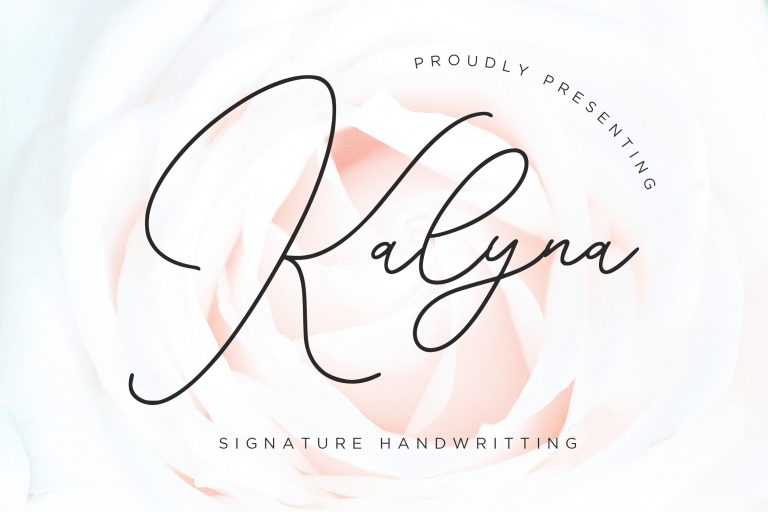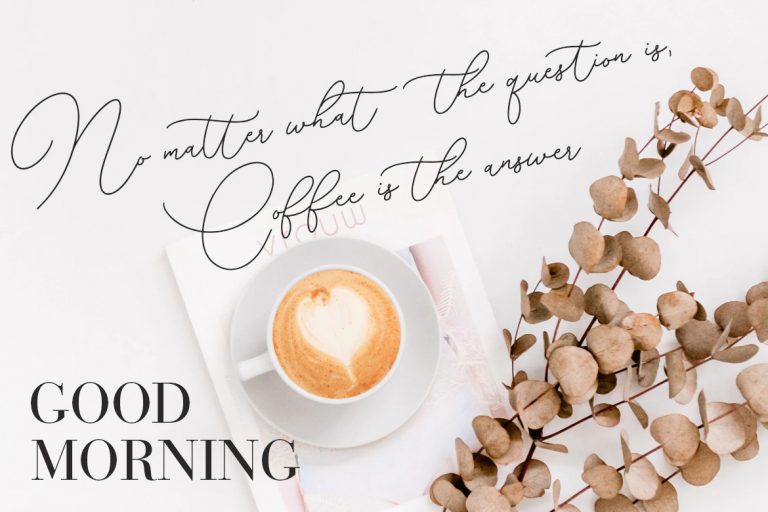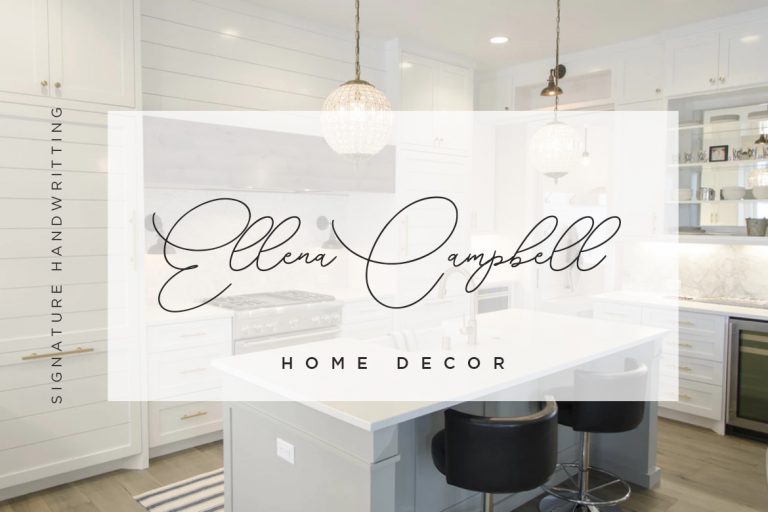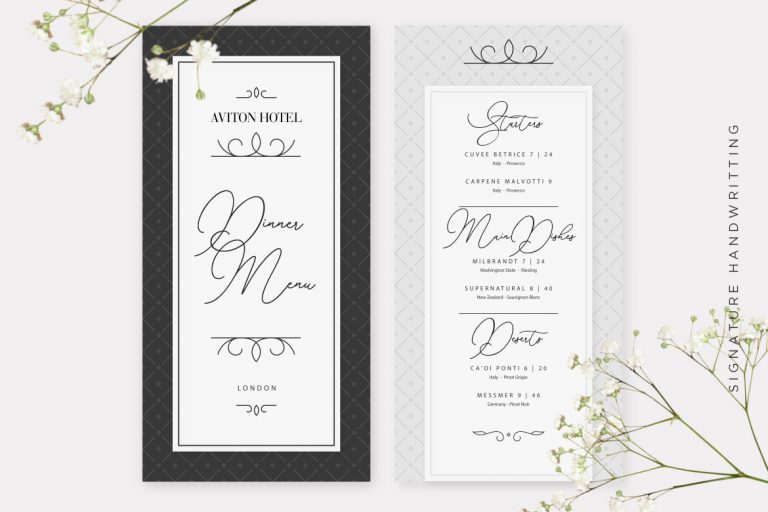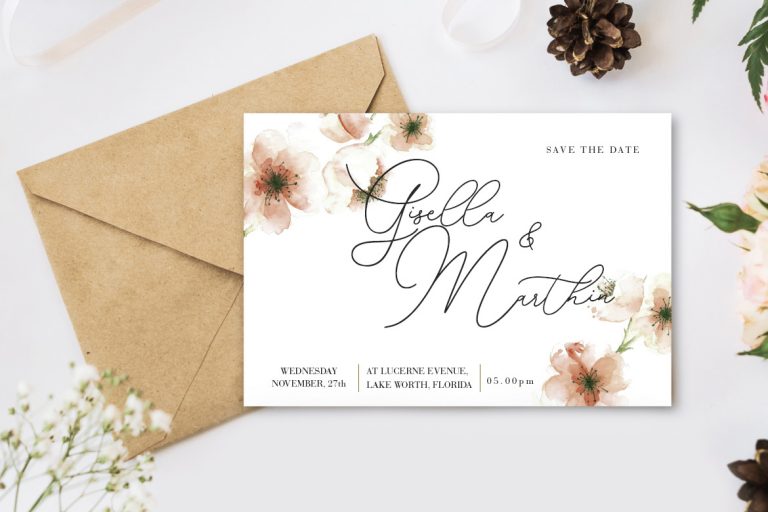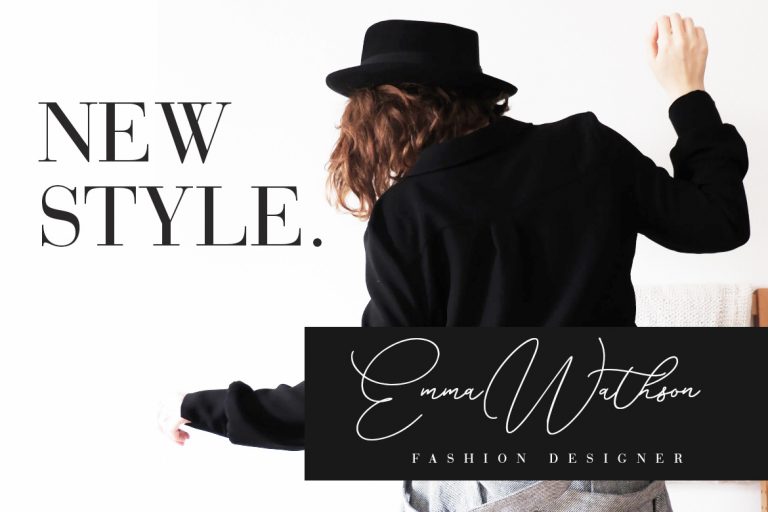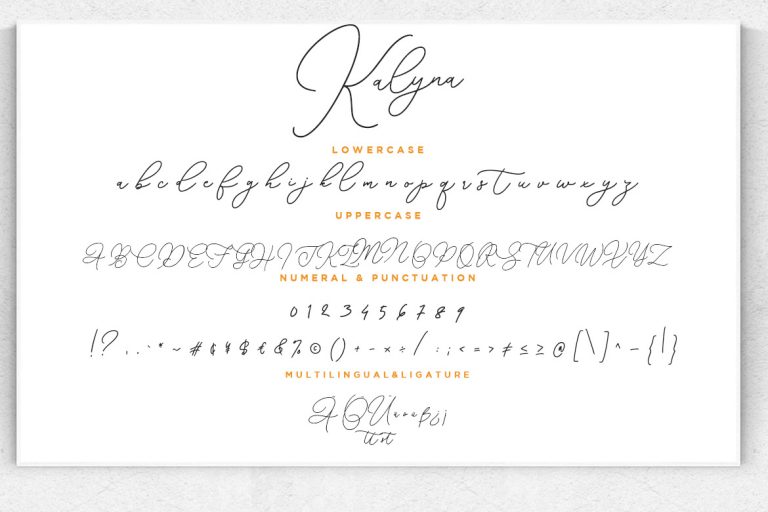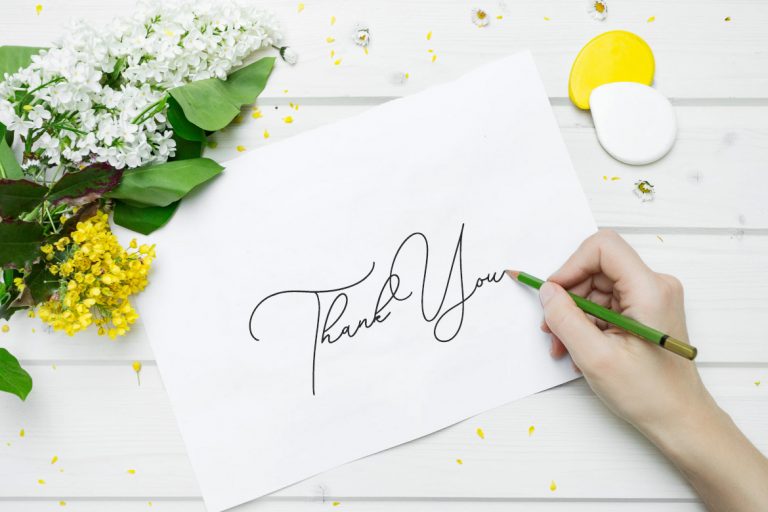
Kalyna is a handwritten signature font with personal touch handmade taste.
Kalyna is perfect for branding projects, logo, wedding designs, social media posts, advertisements, product packaging, product designs, label, photography, watermark, invitation, stationery and any projects that need handwriting taste.
- Standard glyphs
- Ligature
- Fonts include multilingual support for; ä ö ü Ä Ö Ü ß ¿ ¡
Kalyna Signature Handwriting